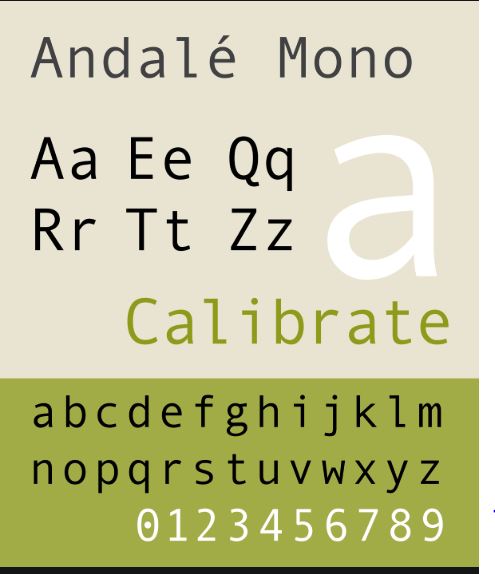
The Andale mono font can aid you in assembly quite a lot of designing tactics simply in view that of its clean and clear appearance. Have a fast look like alcubierre typeface over the fonts maps portraits we fasten in right here to get a summary about it.